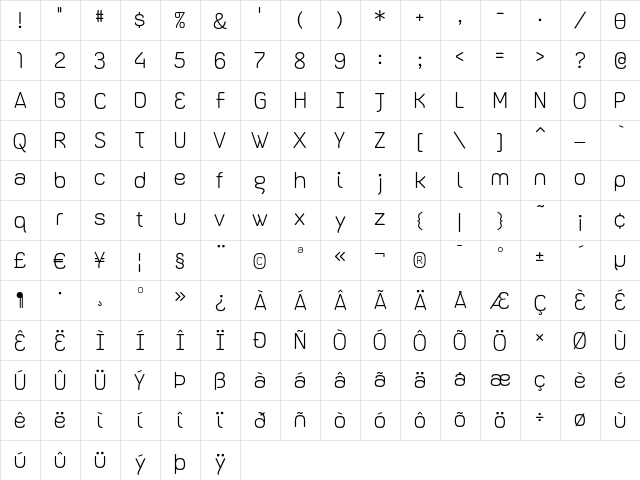
Dispose is a composed and adaptable typeface that performs quietly and consistently across a wide range of design contexts. Its slender proportions lend an understated elegance to any composition.